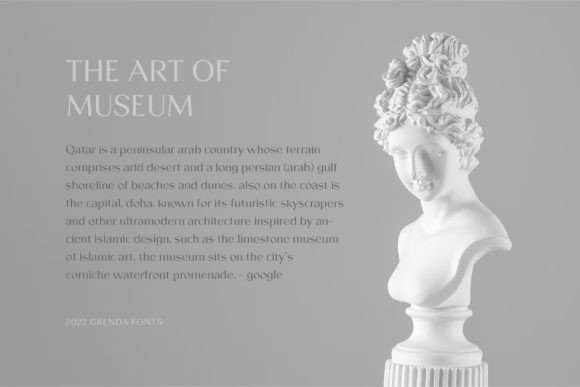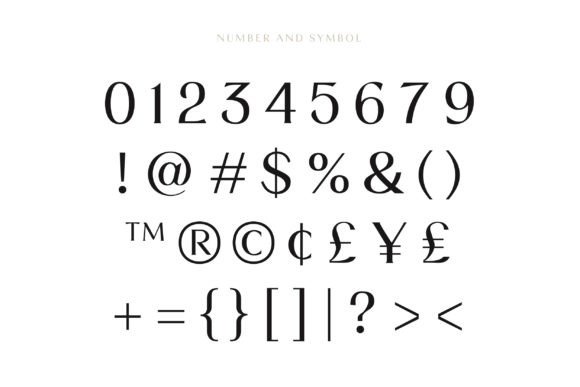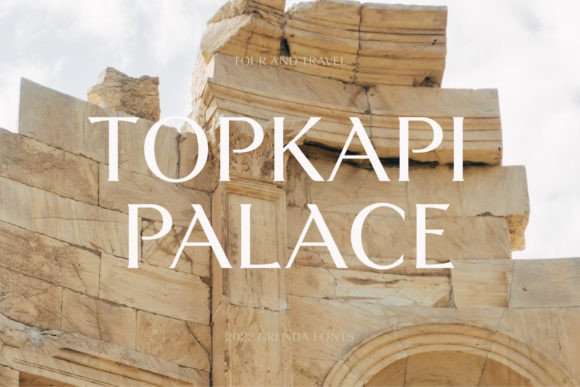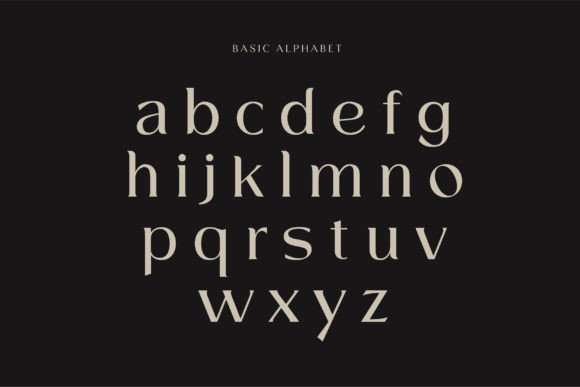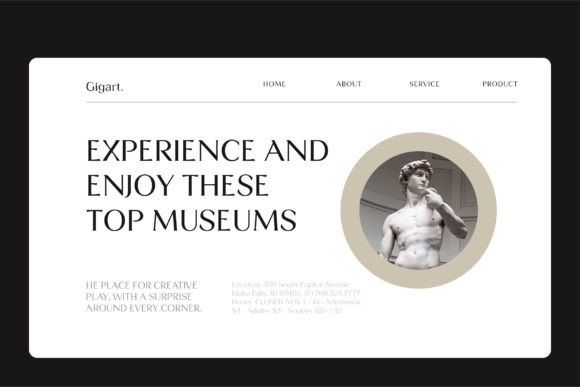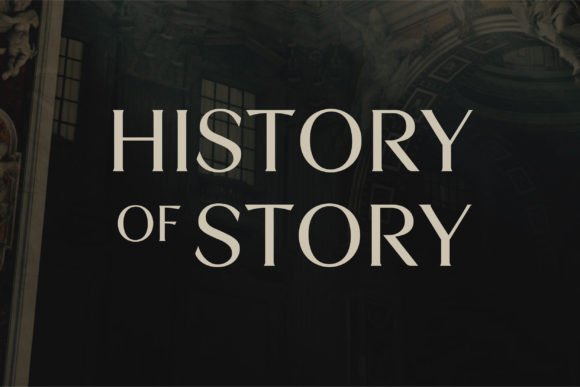
Introduction to Grenda Font Font
Fonts play a crucial role in design, and the Grenda Font font is a typeface that brings both character and versatility to any project. Whether you’re working on a branding project, a website, or a print design, the Grenda Font font offers a unique style that can elevate your work.
Grenda is a modern and elegant serif font.
With its elegant appearance and finely balanced proportions, Grenda is perfect for headline text, corporate branding, and other design applications where a touch of refinement is required .
Key Features of Grenda Font Font
Why Choose Grenda Font Font?
The Grenda Font font is more than just a typeface – it’s a design tool that helps you communicate your message with style and clarity. Its unique character set and versatile design make it suitable for a wide range of applications, from elegant invitations to bold headlines.
With its carefully crafted letterforms and balanced proportions, the Grenda Font font ensures readability and visual appeal across all mediums.
What makes Grenda Font font special?
The Grenda Font font stands out with its unique design, exceptional readability, and versatility across various design applications.